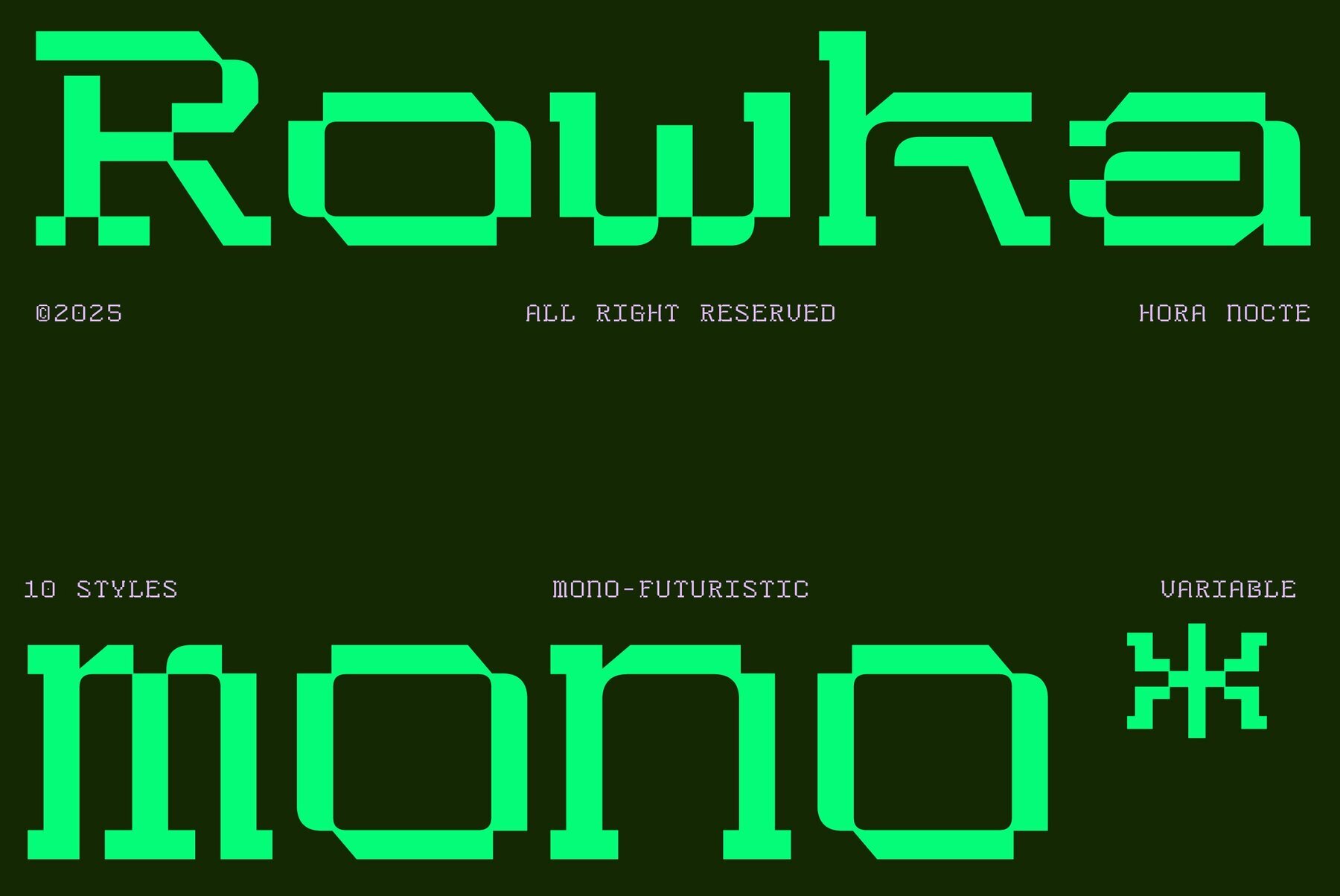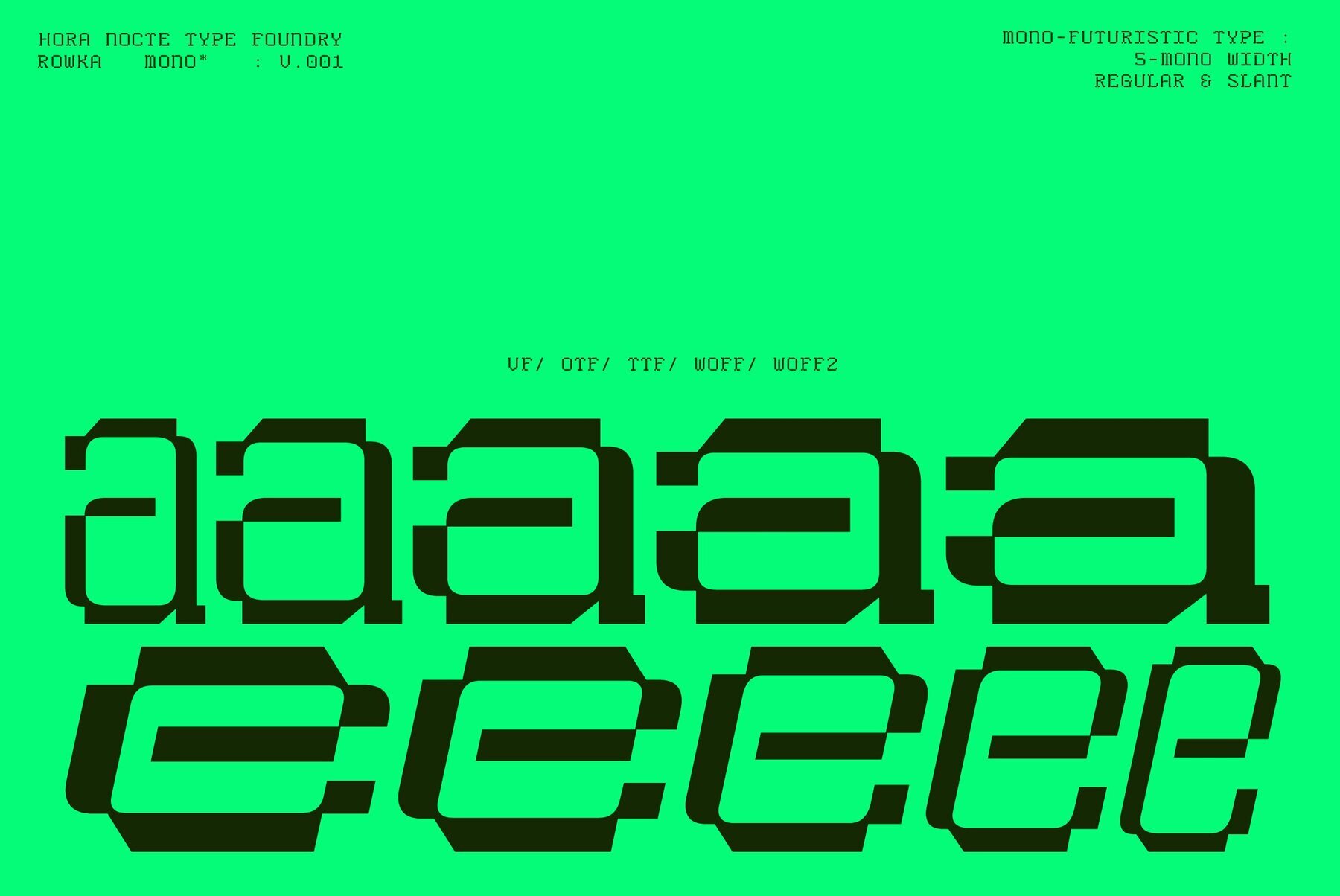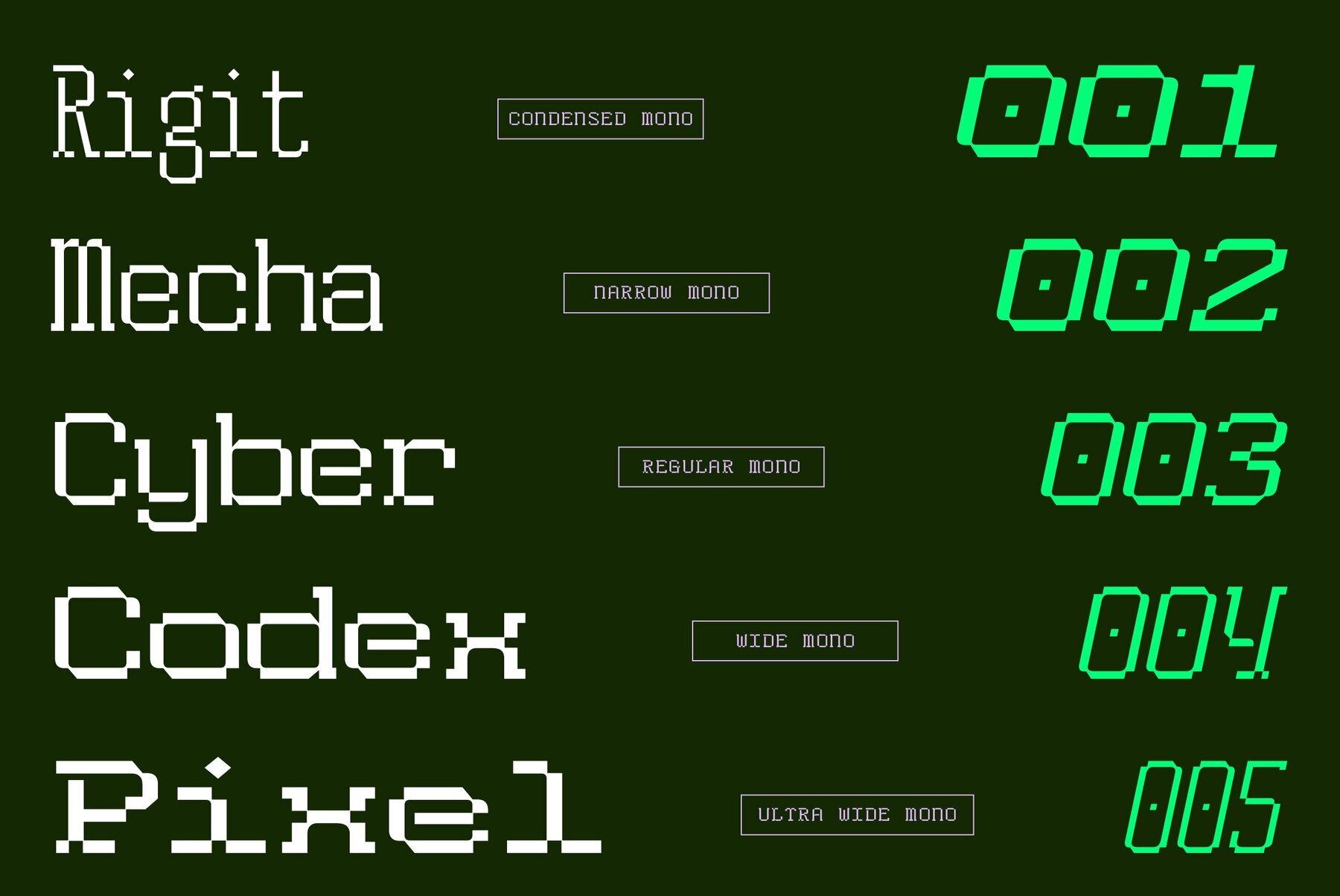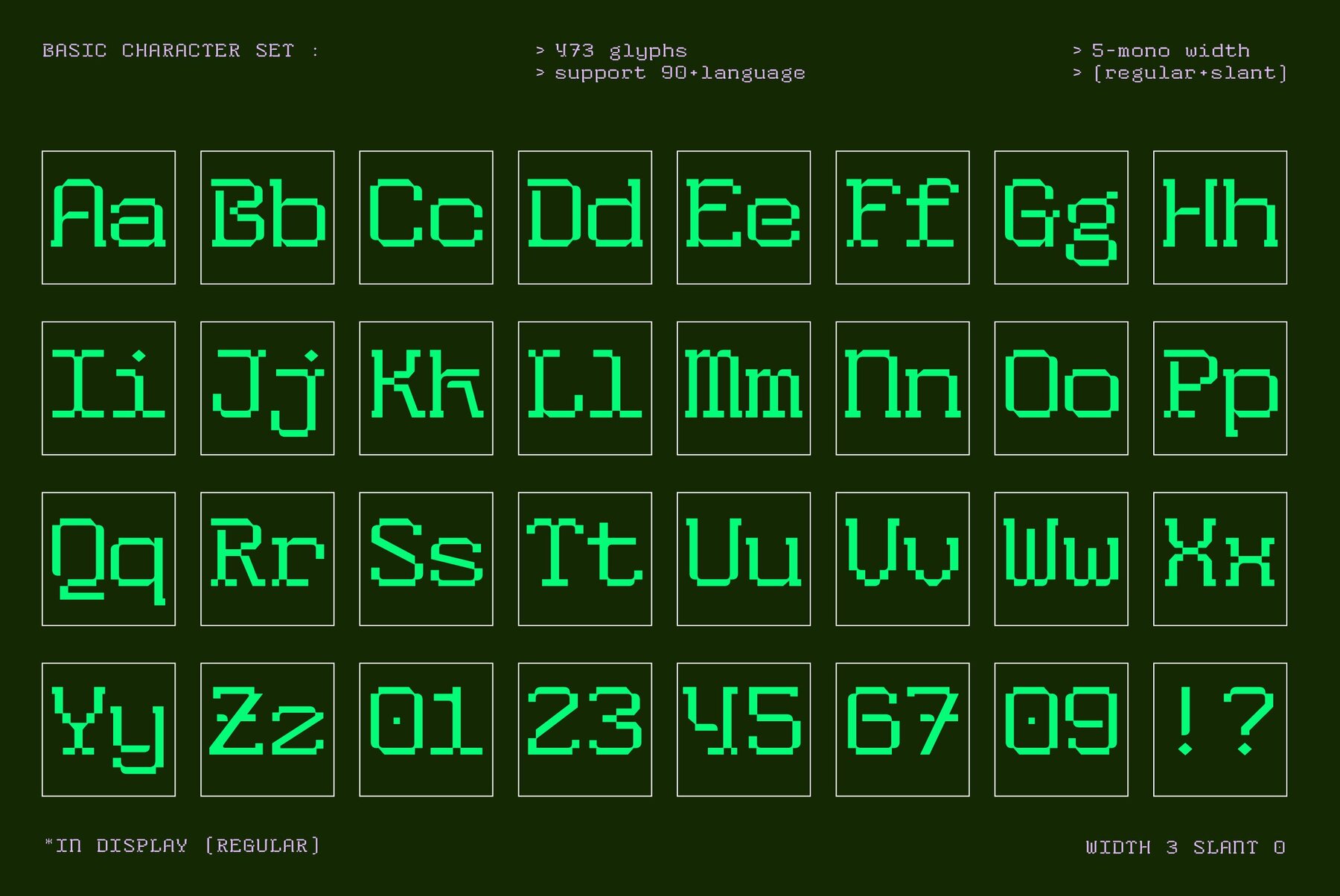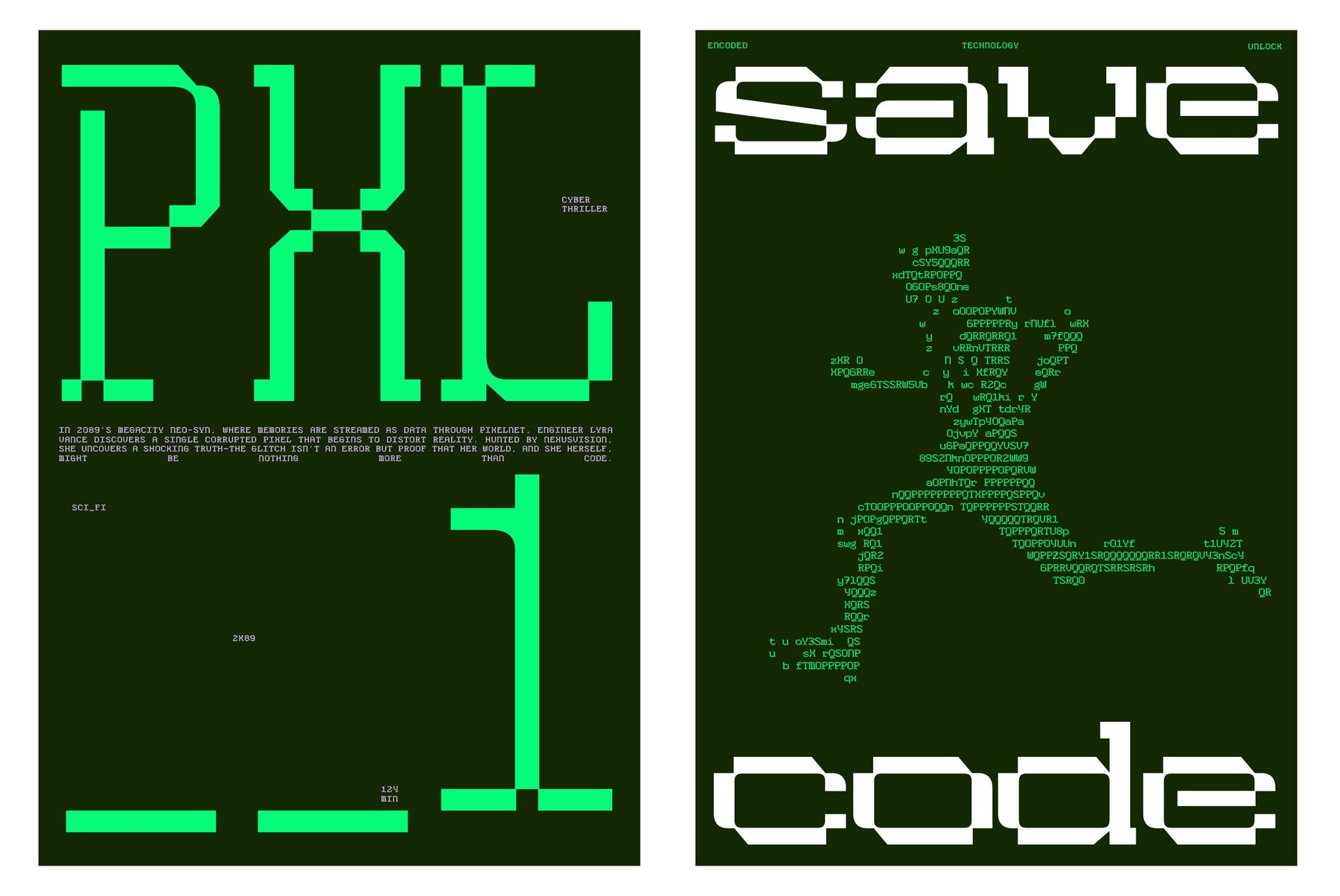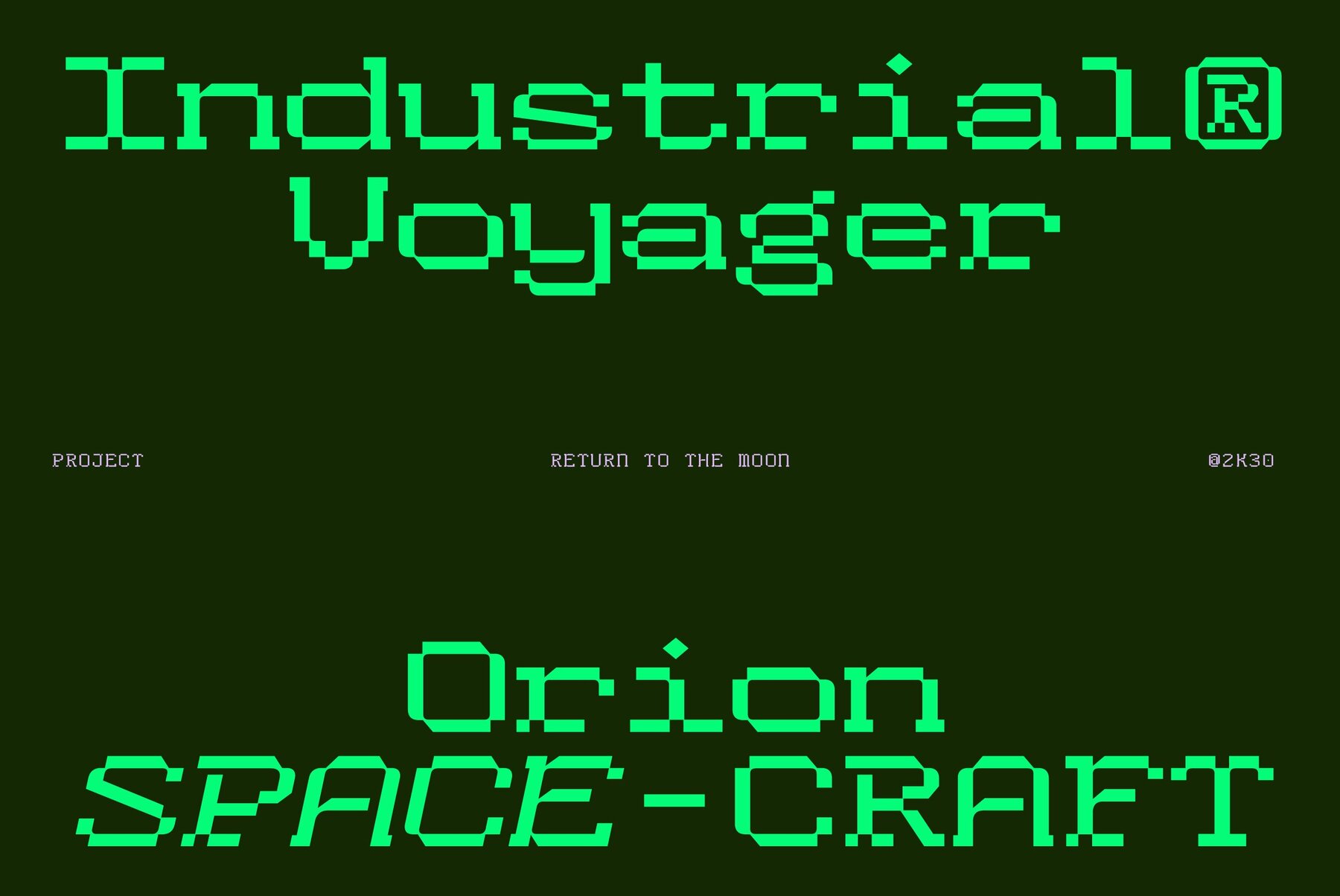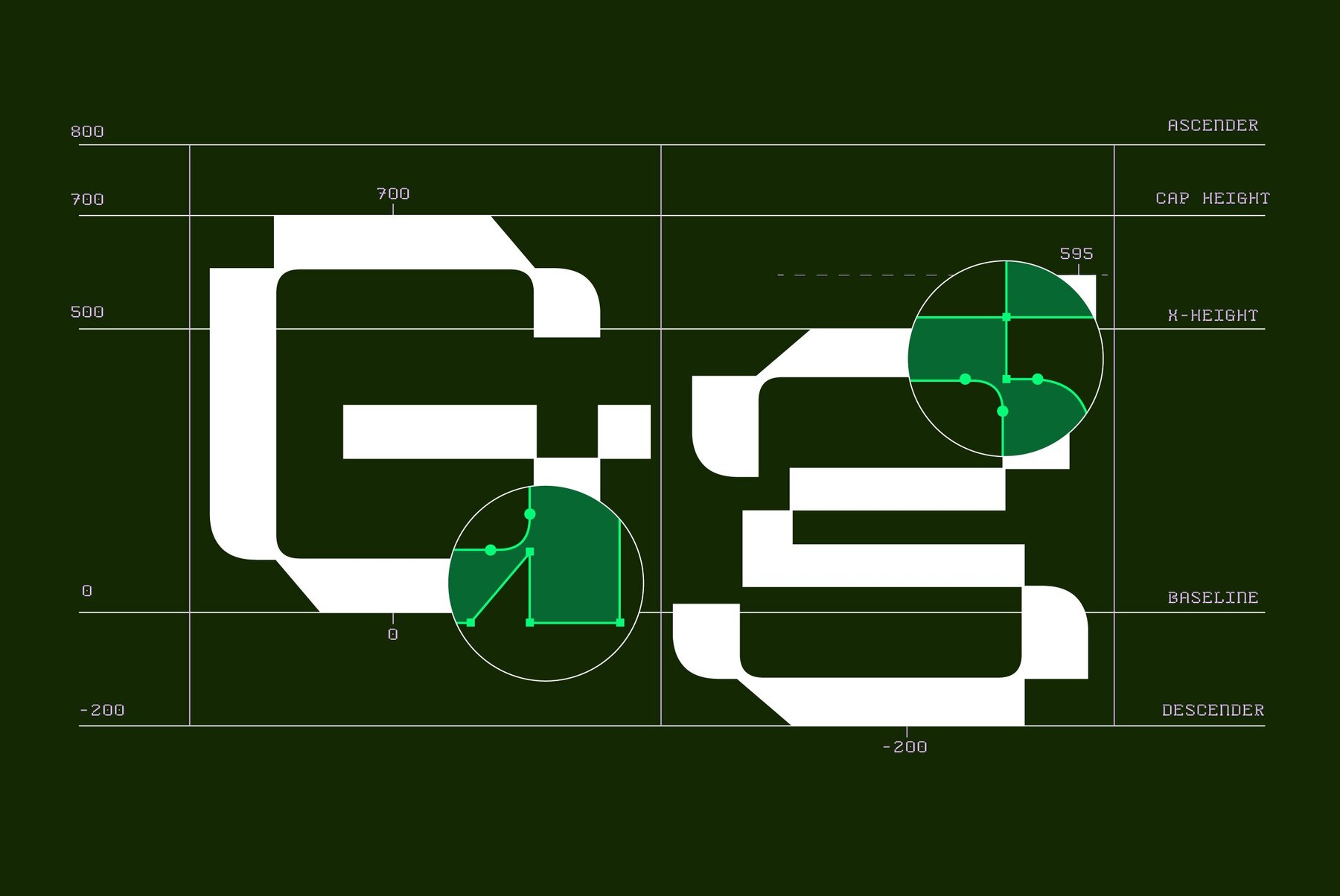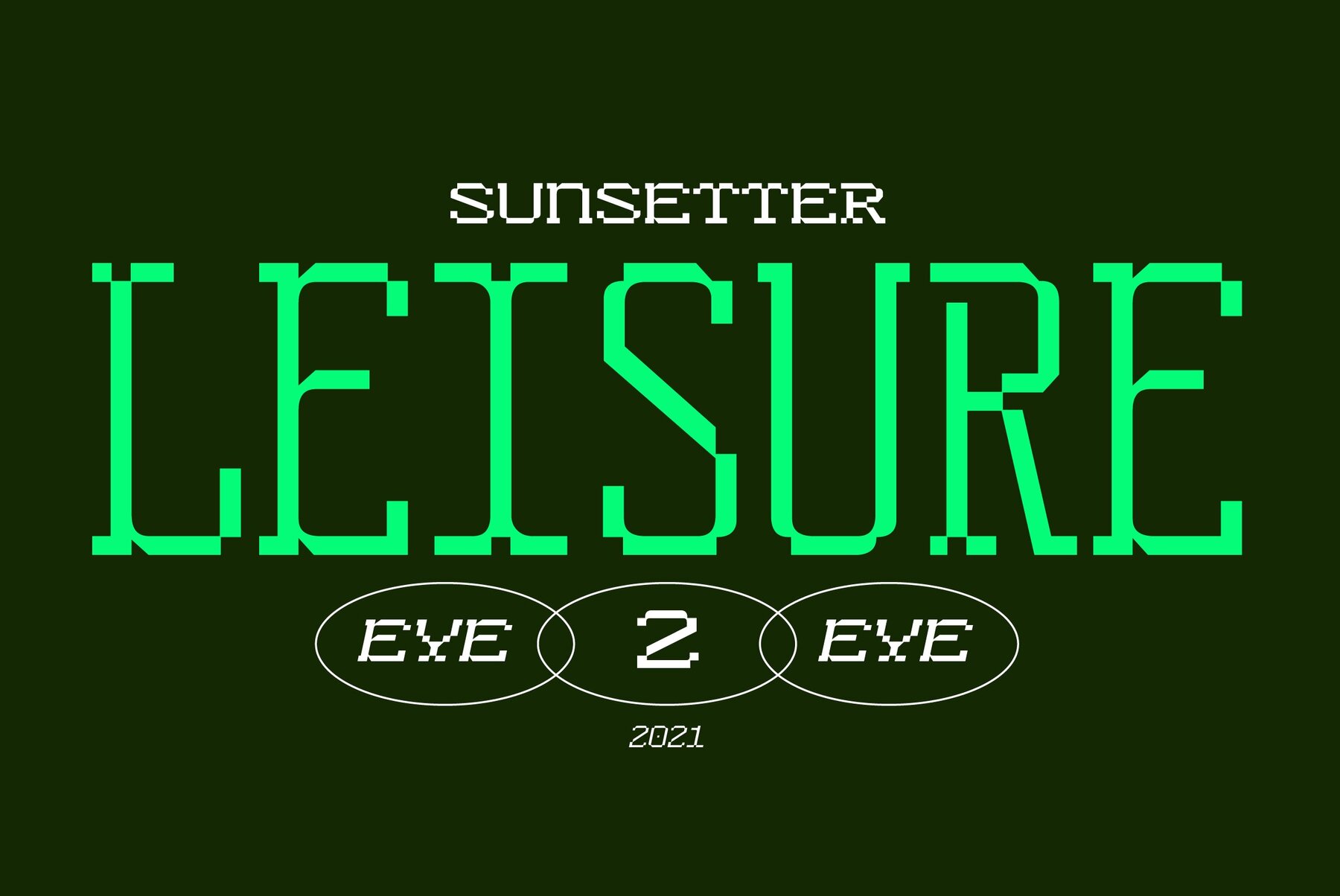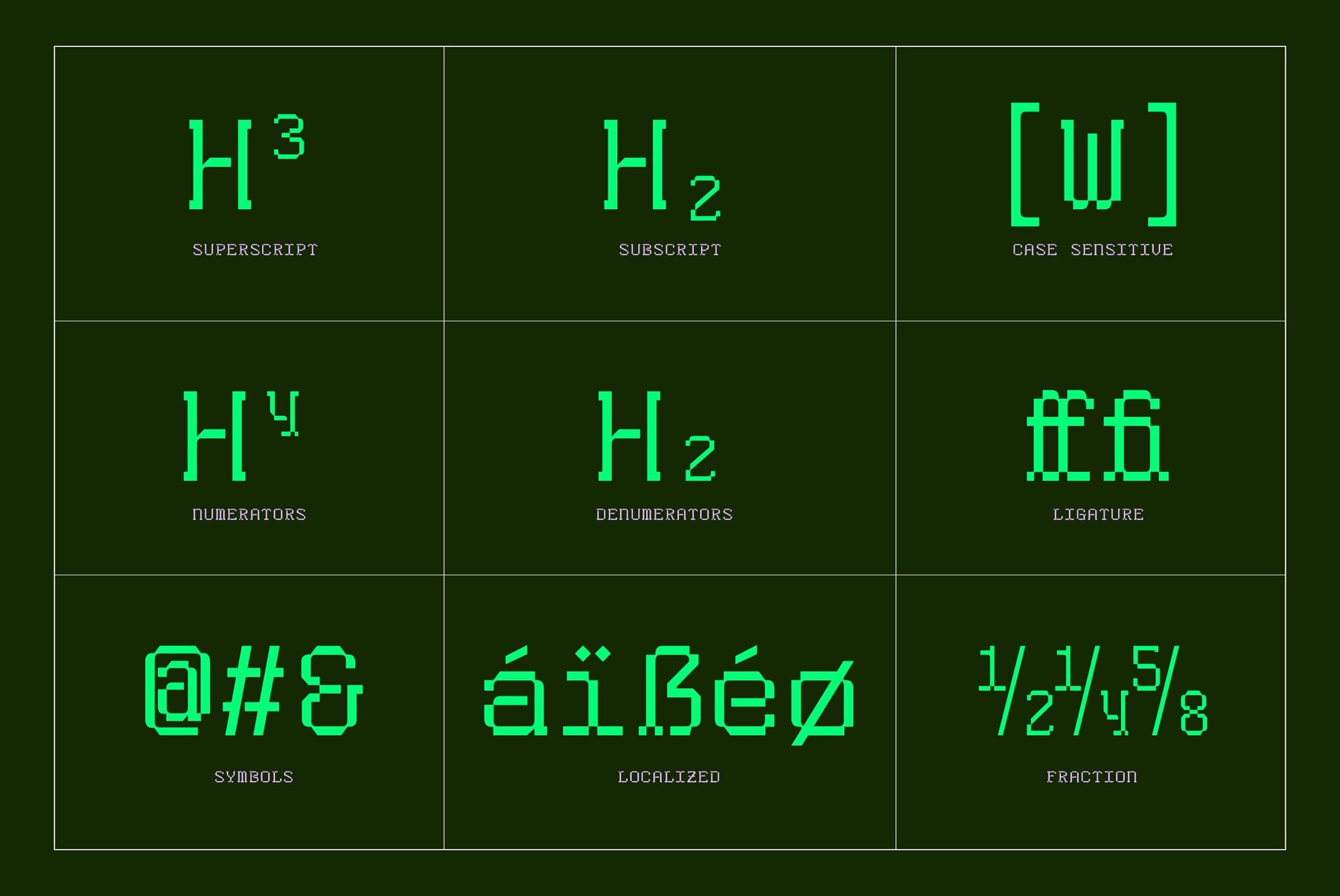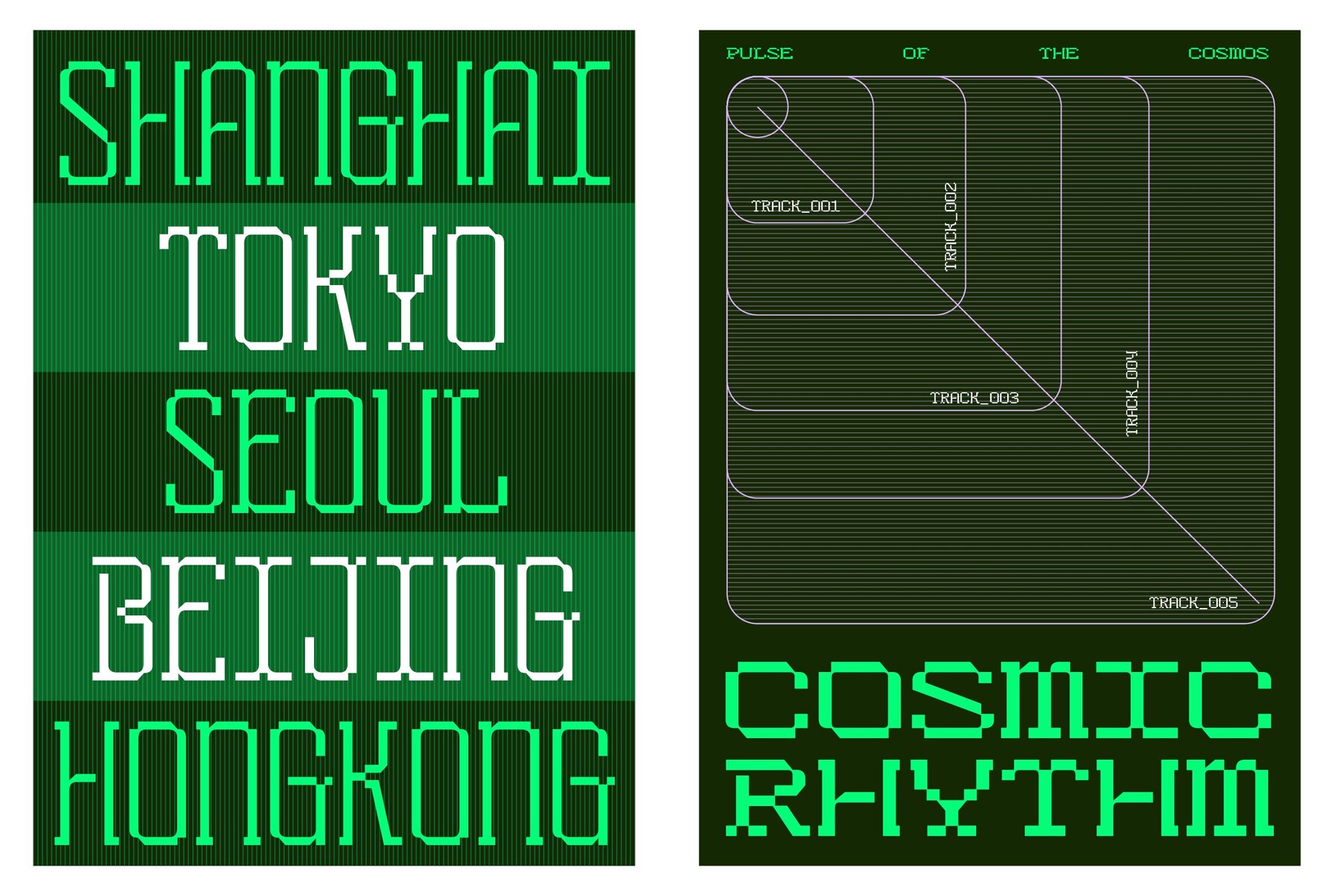
HN Rowka Mono Font
HN Rowka Mono stands out among monospaced fonts with its modular geometry, sharp chamfered edges, and structured grid system. This variable typeface offers five distinct mono width styles, available in both regular and slant variations. Built on principles of early-digital design, its industrial sensibility pairs well with projects demanding a technical, forward-facing aesthetic. By embracing a cyber-mechanical presence, HN Rowka Mono suits the needs of interfaces, branding, and editorial work that call for clarity and structural integrity. Designers seeking cohesion in digital and print environments will find HN Rowka Mono adept at balancing modern clarity with machine-like precision. Its distinct angular shapes and consistent spacing lend themselves to high-impact motion graphics, experimental layouts, and gaming environments. The font’s versatility in weight and posture supports flexible use, whether for text or cutting-edge displays.HN Rowka Mono: Modular Monospace With Futuristic Geometry